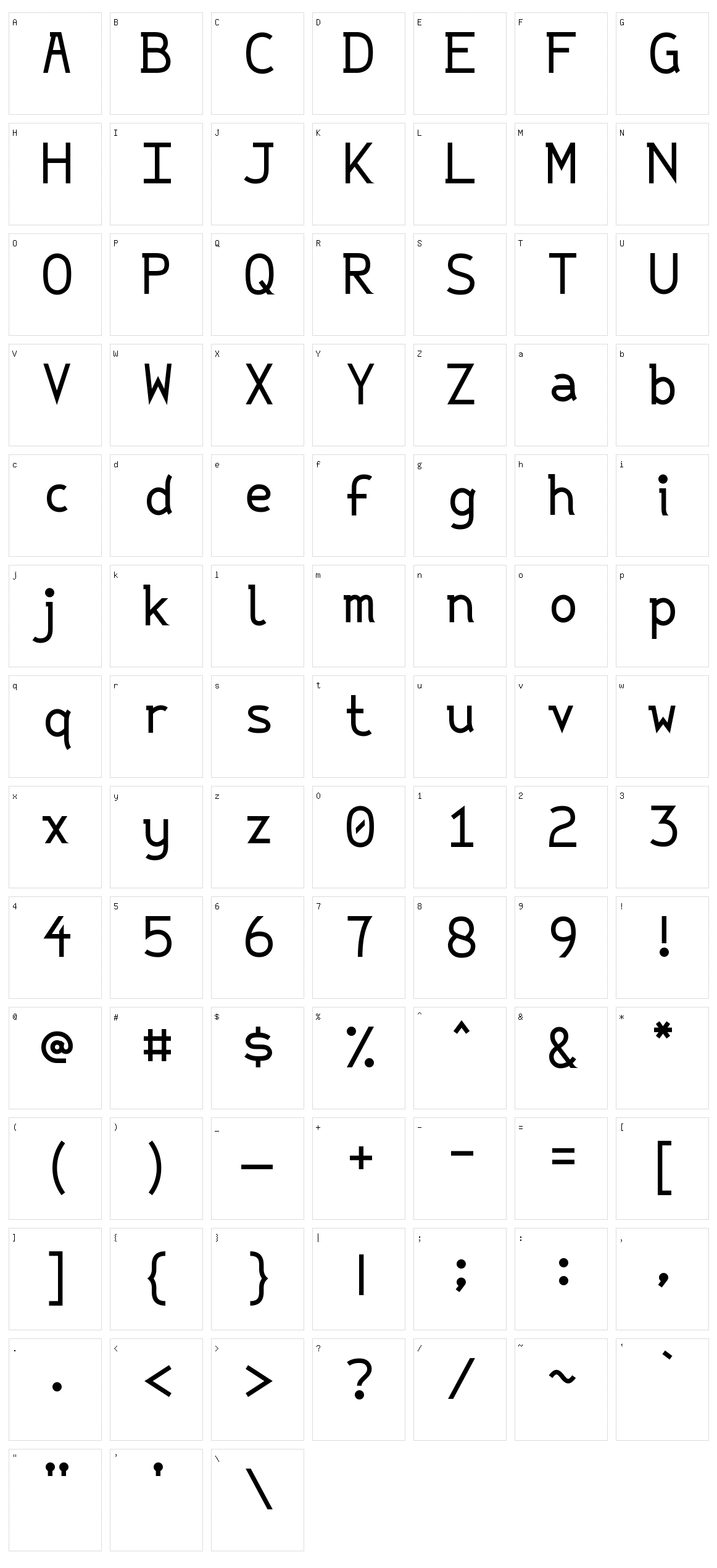
STRING LITERAL by David P. Kovalchik a.k.a. Vid the Kid
1. String Literal (StrLit.ttf) - A modern, mono-spaced sans font designed so commonly-confused characters (such as I, l, and 1) appear distinct. Contains Windows ANSI codepage 1252 character set, as well as DOS ASCII codepage 437 characters in their modern Unicode codepoints. (In Unicode-aware text editors, import cp437 text using the appropriate import filter, and all characters will appear correct in the String Literal font.) May also be useful for computer code. At 9 points, 80 columns by 43 rows fit nicely in 7.5" by 10" space. At 12 points, 80 columns by 25 rows fit nicely in 10" by 7.5" space.
2. String Variable (StrVar.ttf) - A proportional, general-use version of String Literal. Still useful for computer code if having a mono-spaced font isn't necessary.
3. String Literal 437 (Str437.ttf) - The same as String Literal, except the cp437 (DOS ASCII) characters are mapped to their original positions. Useful for viewing cp437 text in non-Unicode-aware applications such as Windows Notepad.